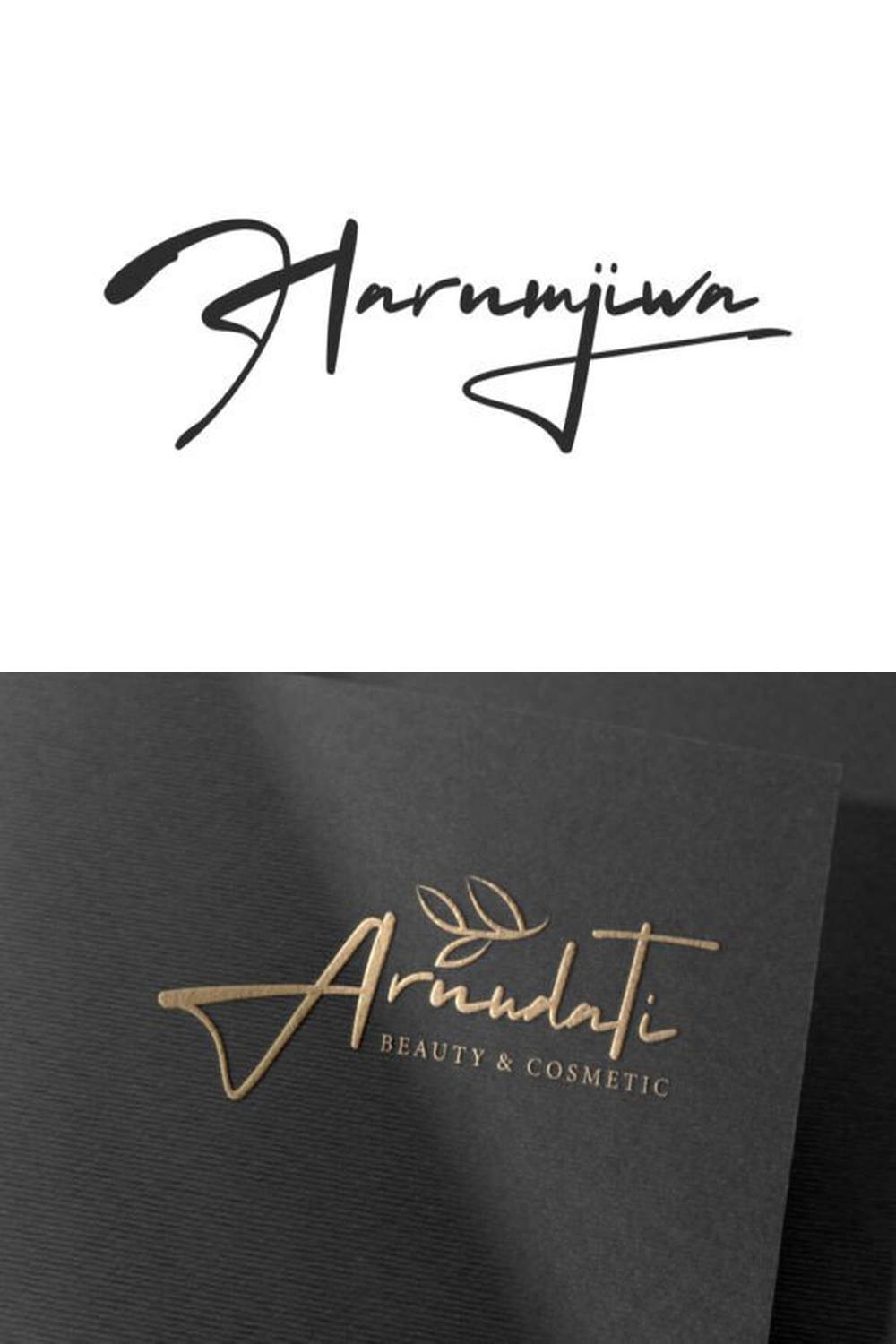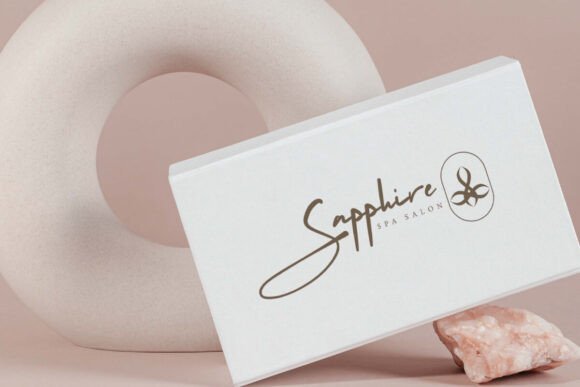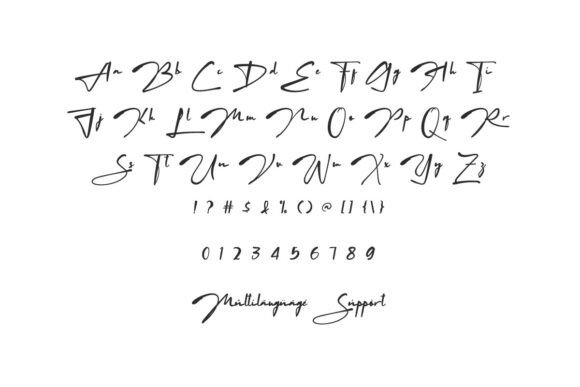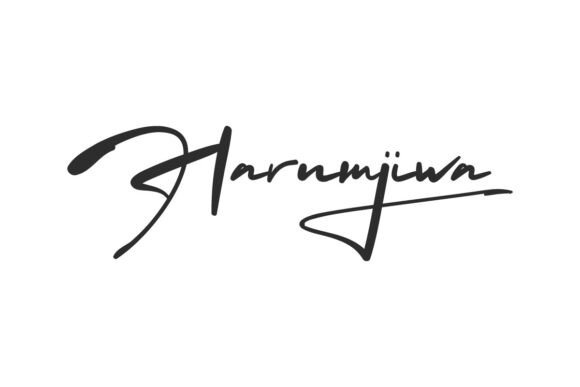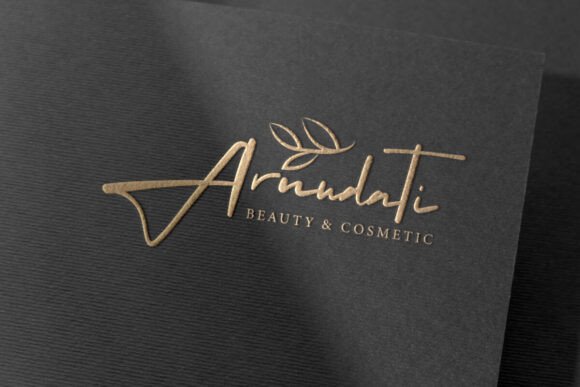
Harumjiwa Font: Chic Handwritten Signature Font for Modern Branding & Logos
About the Harumjiwa Font
Get ready to be inspired by Harumjiwa Font, a fresh and dynamic typeface for modern creators. Harumjiwa is a beautiful handwriting Signature font with a bold black ink sketch. The font will add artistic touch and an authentic looks to any creative project including brandings, apps, billboard, book titles, cover, greeting card, logo design, poster, product packaging, quotes, stationery, sticker, title, website, wedding invitation, and much more.
Harumjiwa’s bold, expressive strokes are ideal for headlines, short-form text, and branding applications where a strong, artistic personality is desired. It excels in logo design, posters, and packaging, adding a handcrafted feel. However, its highly decorative nature makes it unsuitable for body text or UI elements requiring high readability.
Consider pairing Harumjiwa with a clean sans-serif like Montserrat for a contemporary contrast, or a classic serif like Garamond for a more traditional feel. A simple geometric sans-serif could also work well to provide a modern balance. Avoid pairing it with other highly decorative scripts, which would create visual clutter.
The overall personality of Harumjiwa is bold, artistic, and slightly rebellious. It’s perfect for brands aiming for a handcrafted, authentic, and memorable aesthetic, particularly those in the fashion, art, or lifestyle sectors.
Harumjiwa Font Usage Examples
Harumjiwa Font Example